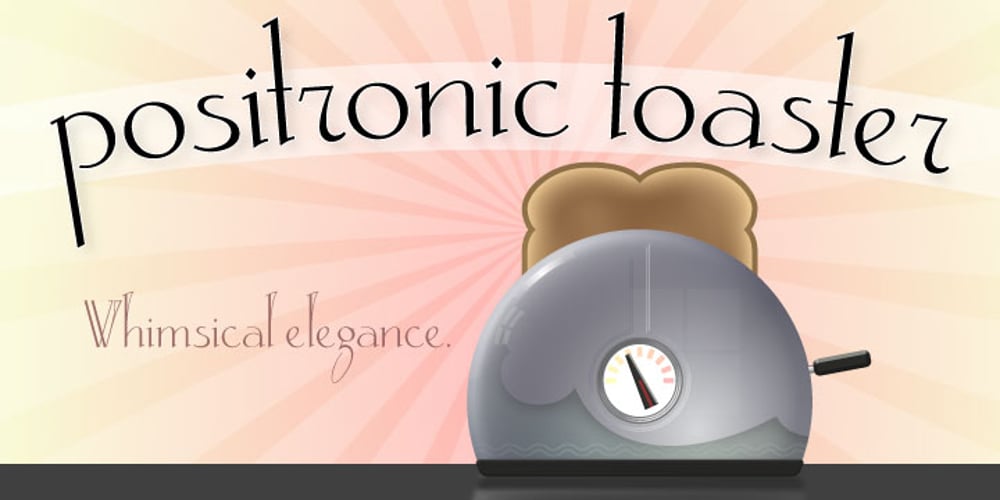
Positronic Toaster Font Family was designed by Brian Crick and published by Brian Crick. Positronic Toaster contains 1 styles and family package options. Positronic Toaster is a modern interpretation of the French upright scripts of the nineteenth century. It started off as an attempt to make a stylized script that didn’t feel like it belonged on a 1950s chrome appliance. Later on, however, the design grew to embrace the qualities of that style of lettering. The result is something playful and elegant, that is not tied to any particular time period. The distinctive angular loops on the ascenders will join together in words like ‘bulb’ or ‘wallflower’ using OpenType contextual alternates. It is suitable for cards, wedding invitations, or any project requiring a fashionable, upscale look.